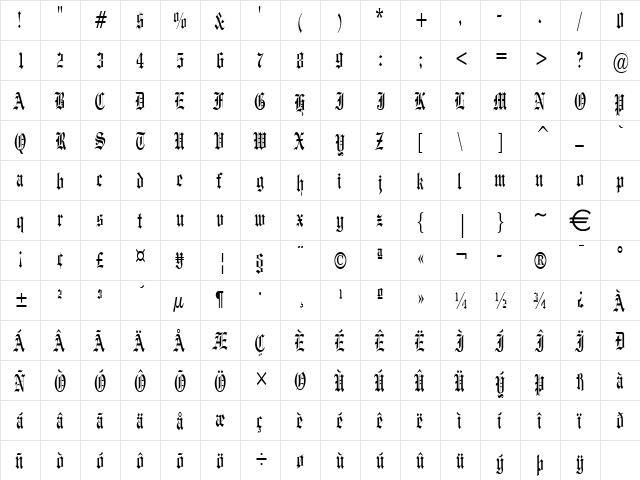
EngravedThin Normal Font Preview
EngravedThin Normal
Design Context for EngravedThin Typeface
EngravedThin brings ornamental detail and strong personality to headlines and identities, where visual impact matters more than quiet functionality. Its slender proportions lend an understated elegance to any composition.
Font Pairing: Pair with a clean neutral sans-serif for body copy to let EngravedThin's character lead without overwhelming the composition.
Pro Tip: Treat EngravedThin as the centrepiece of your typographic hierarchy. One strong heading set in a decorative face can carry an entire layout.